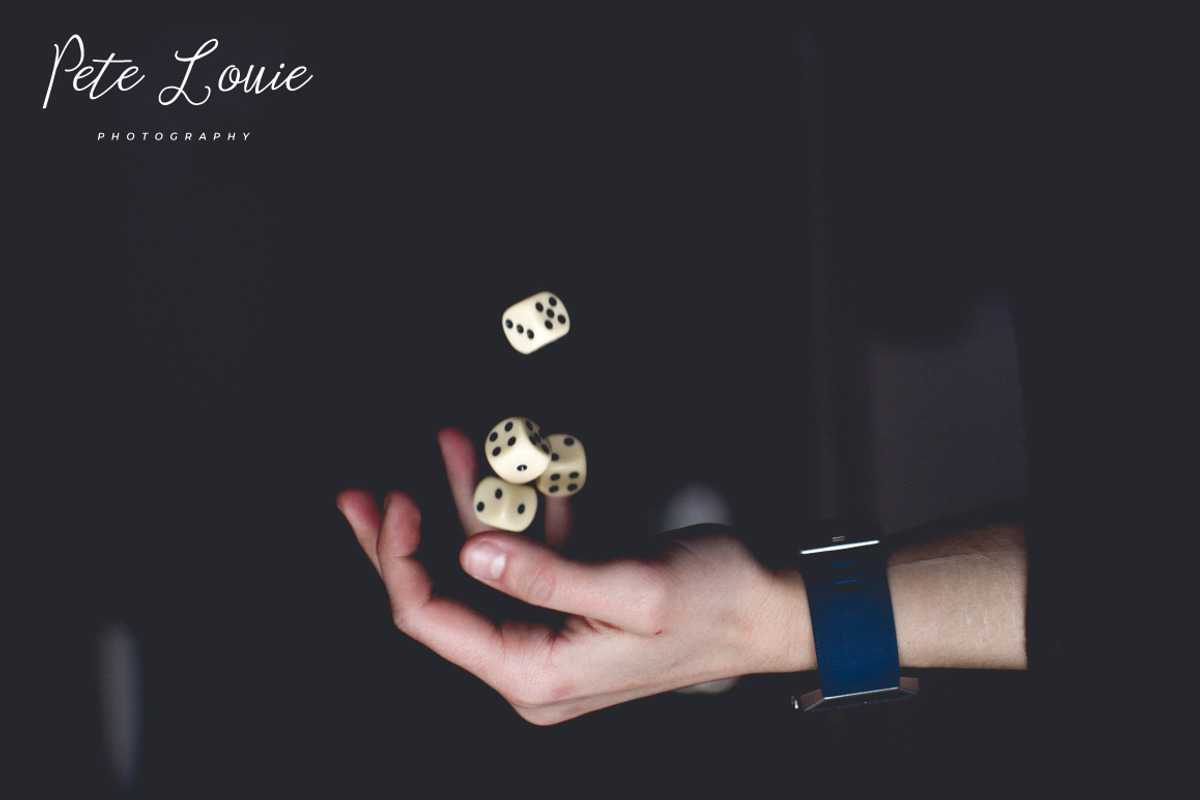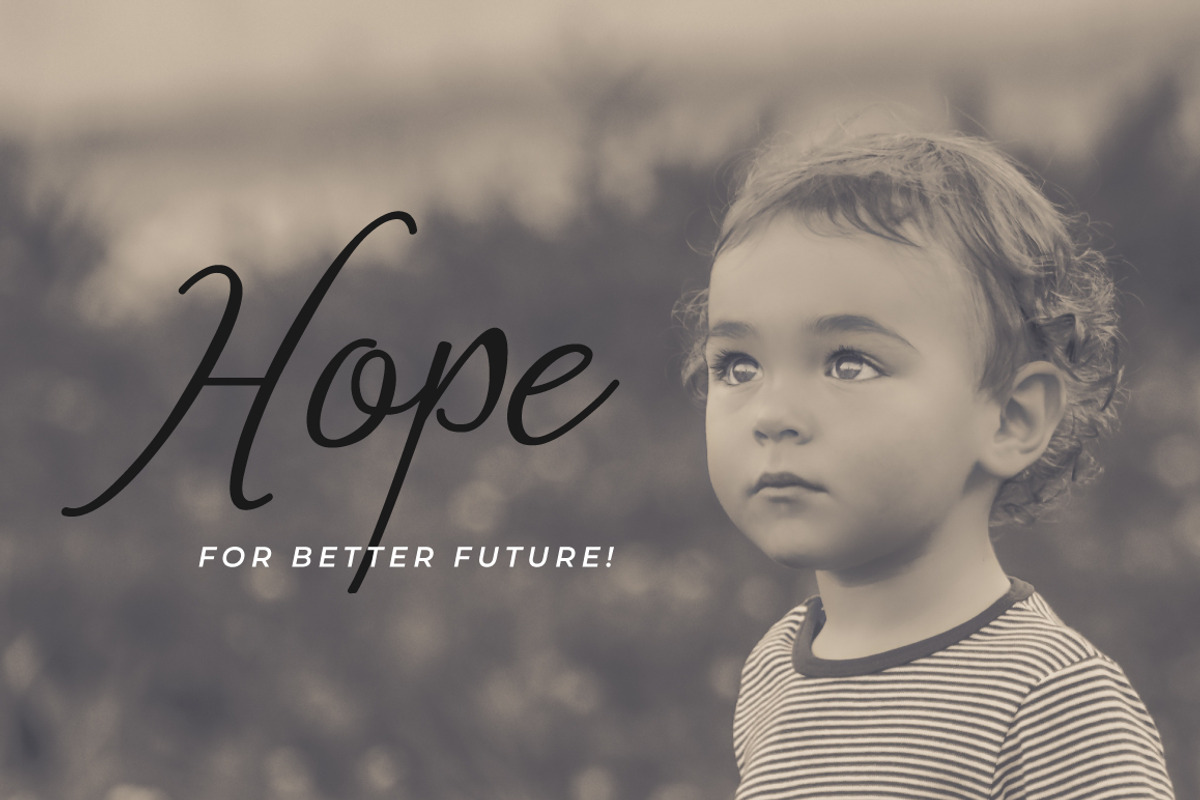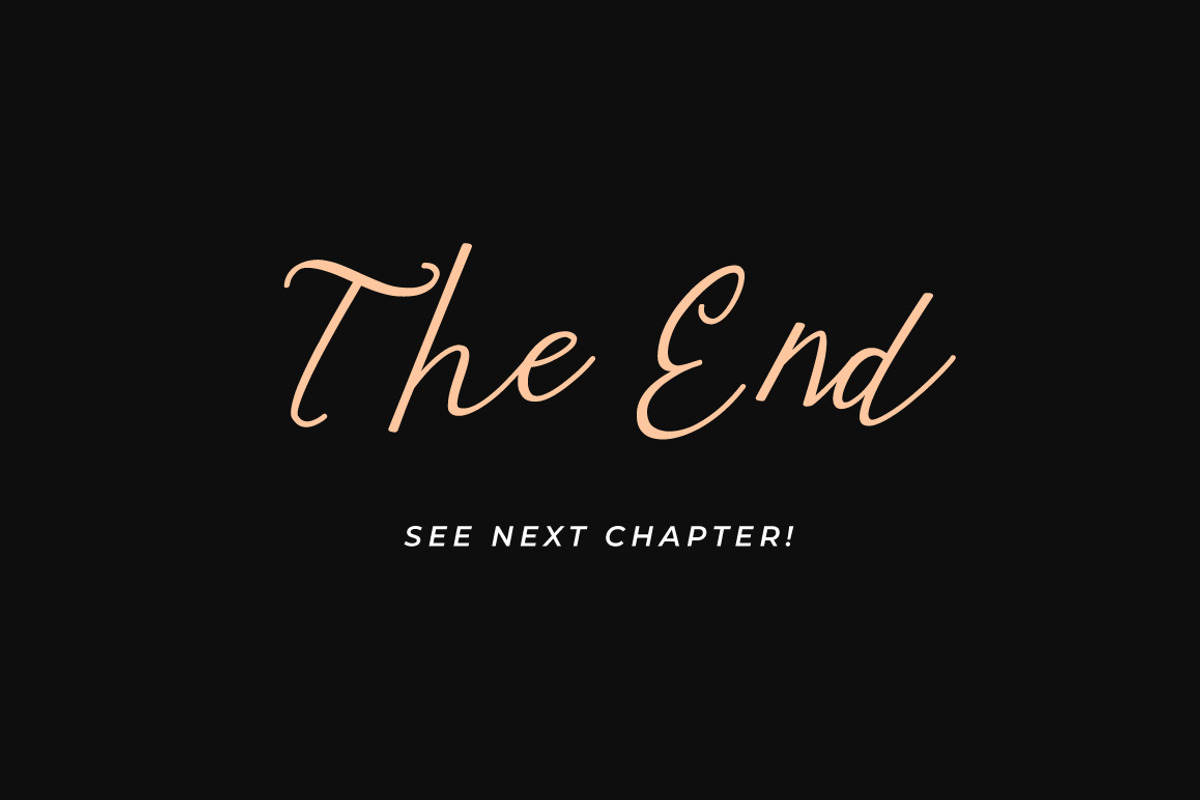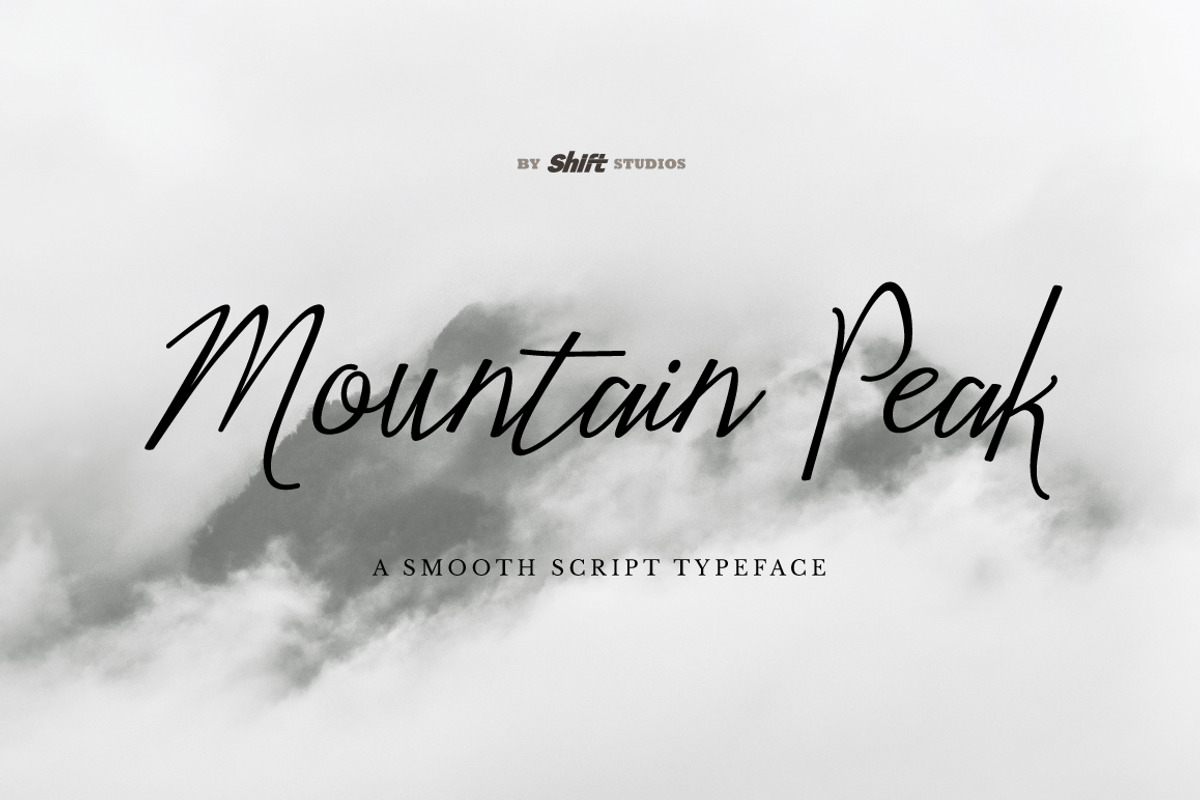
Mountain Peak Typeface
Mountain Peak font is a bouncy script style and handwriting font. This script font specifically established for beautiful and elegant handwriting looks and perfect also for your special branding.
Perfect for displays, headers, invitations, blogs, poster and so much more, Mountain Peak will become a lively essential in your font collection!